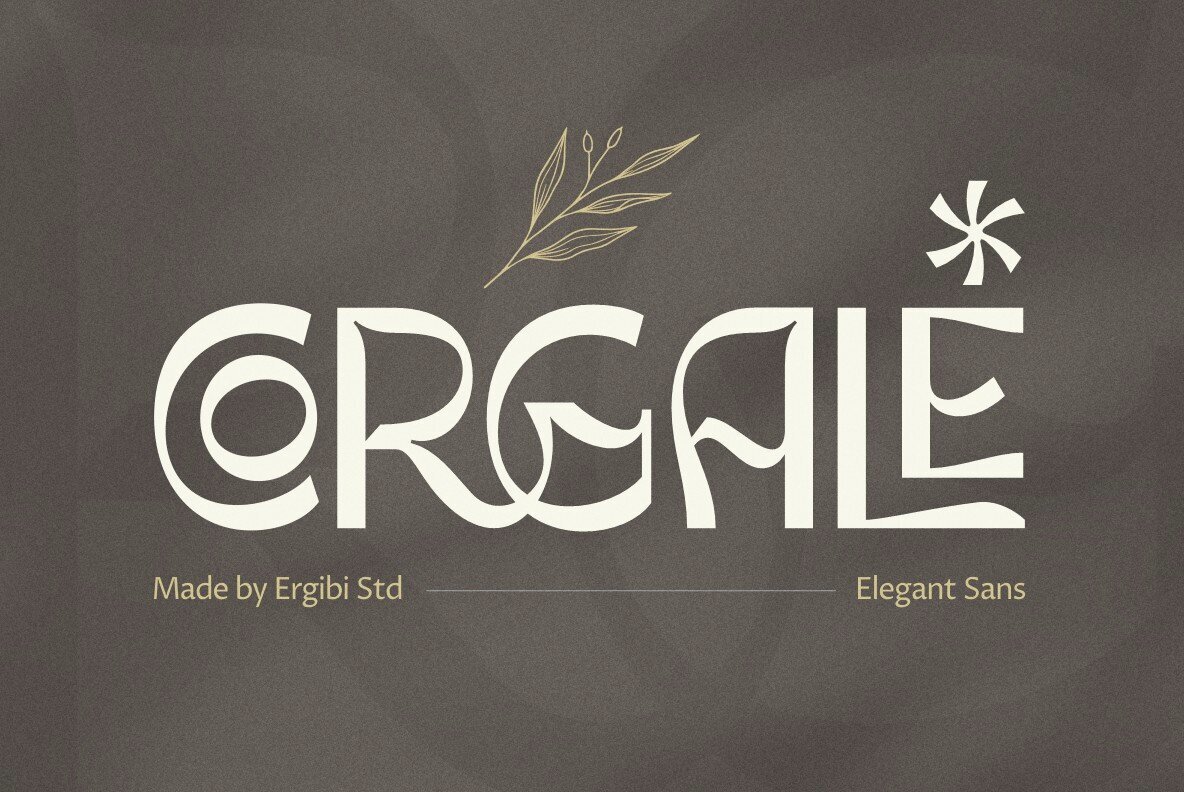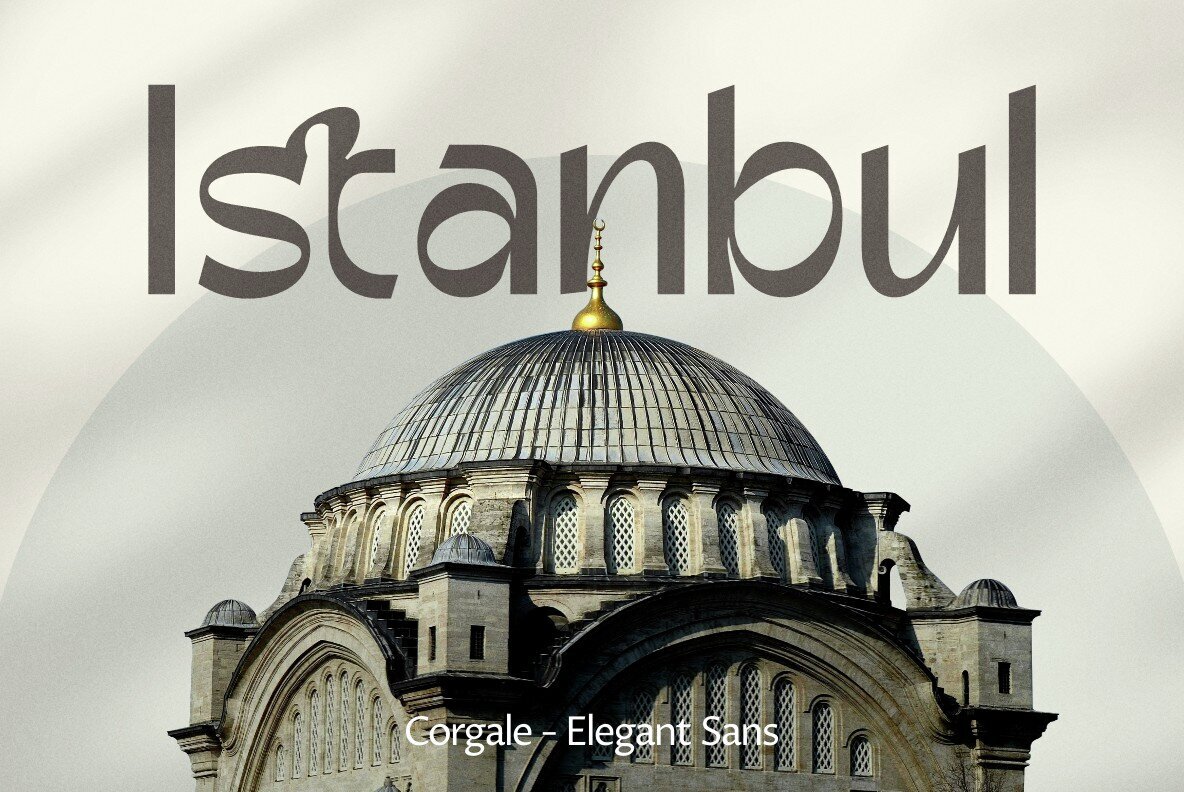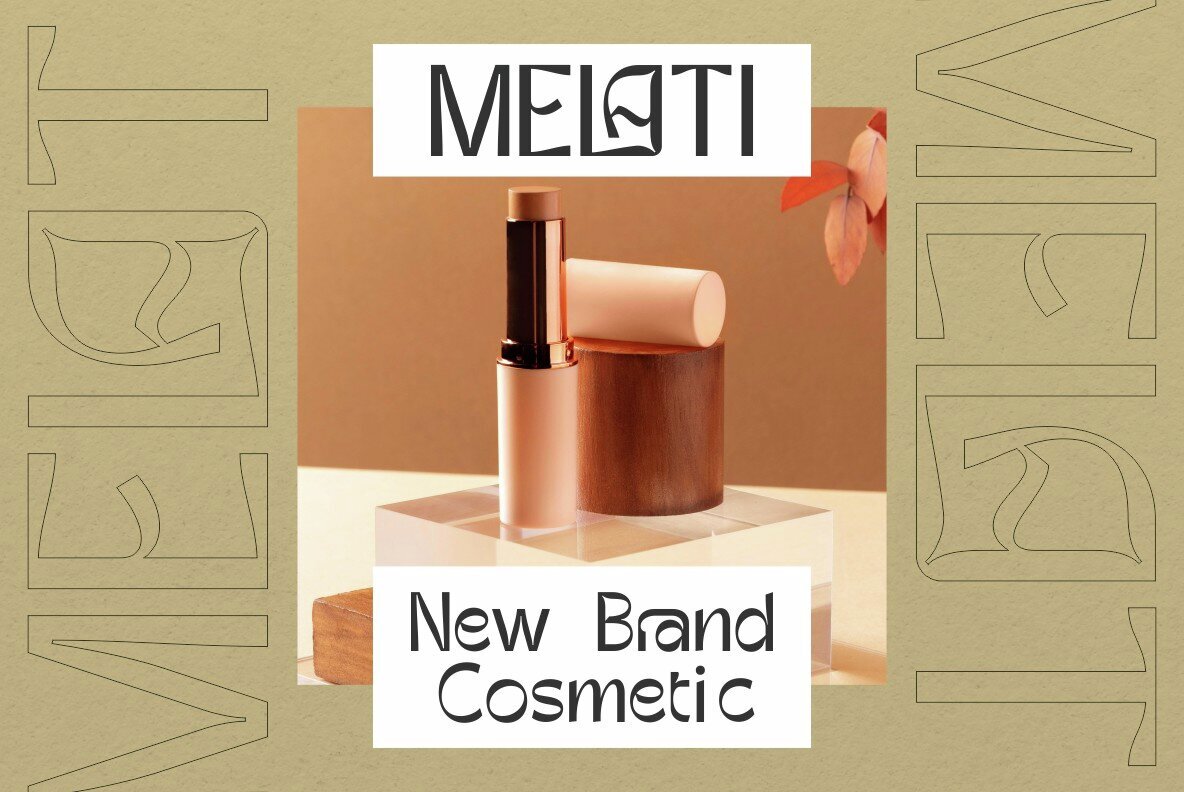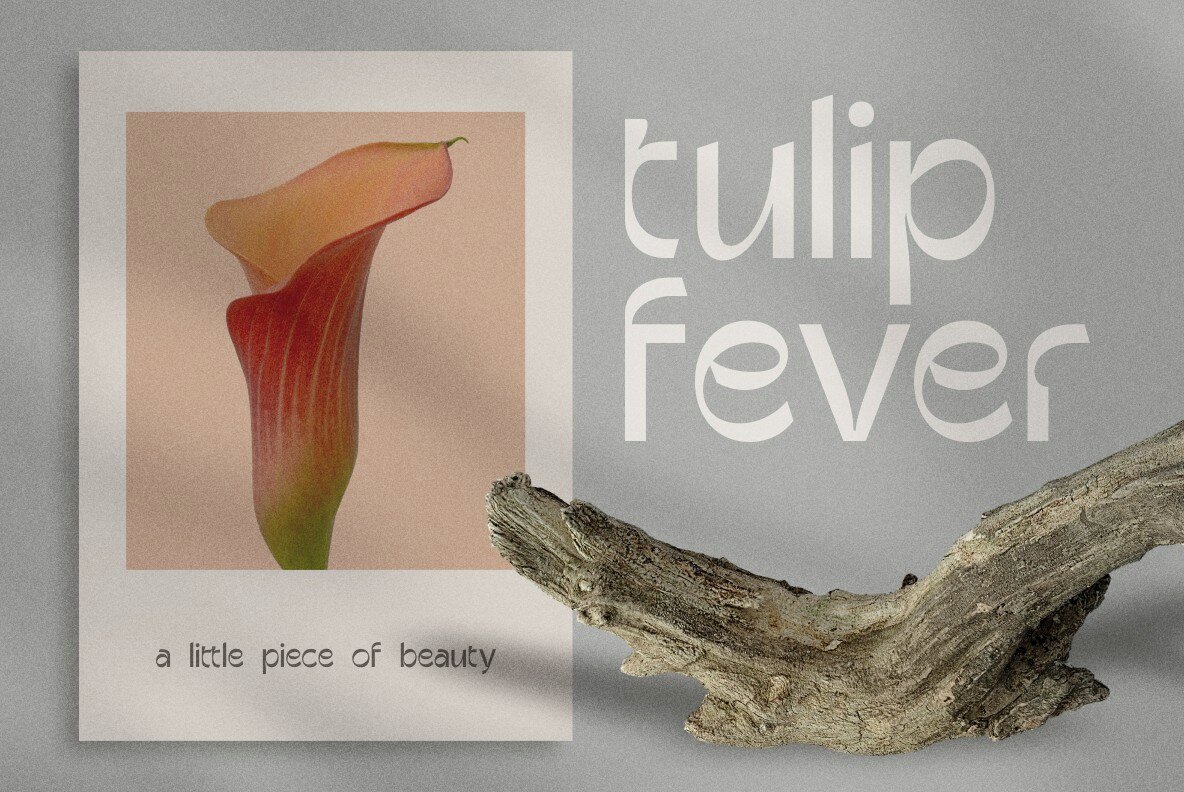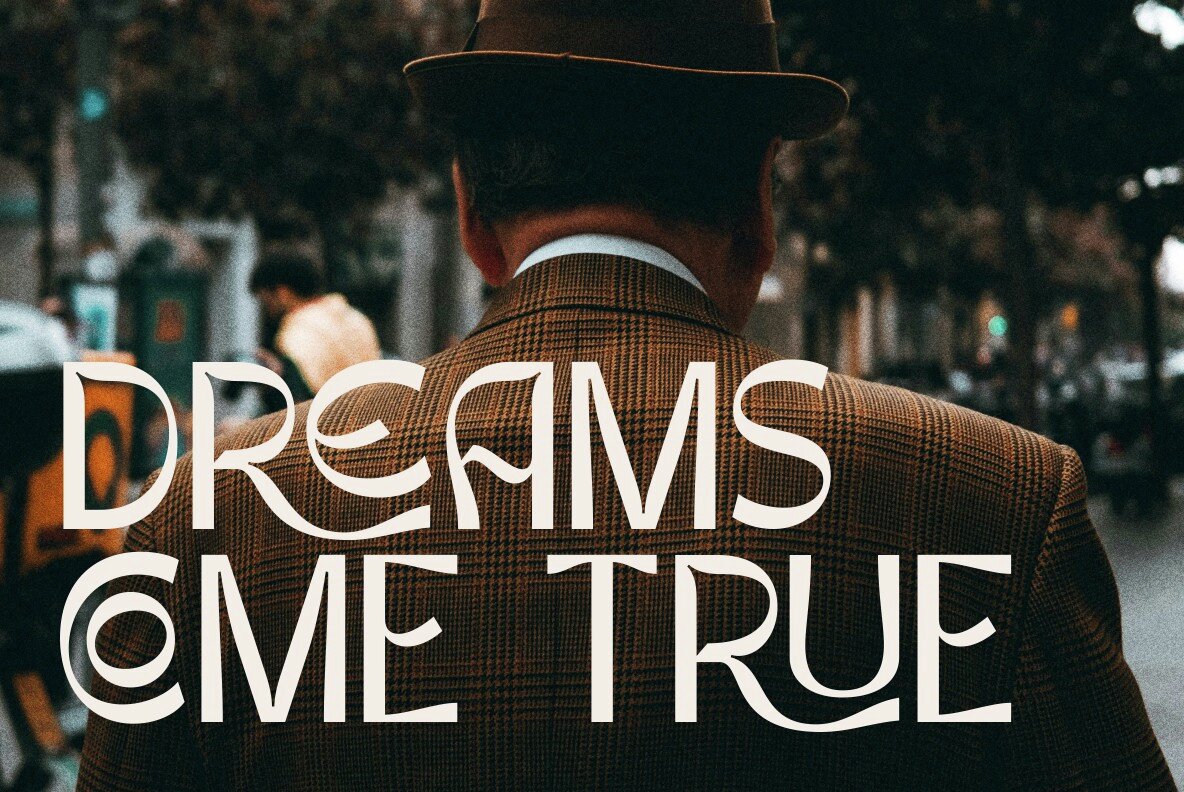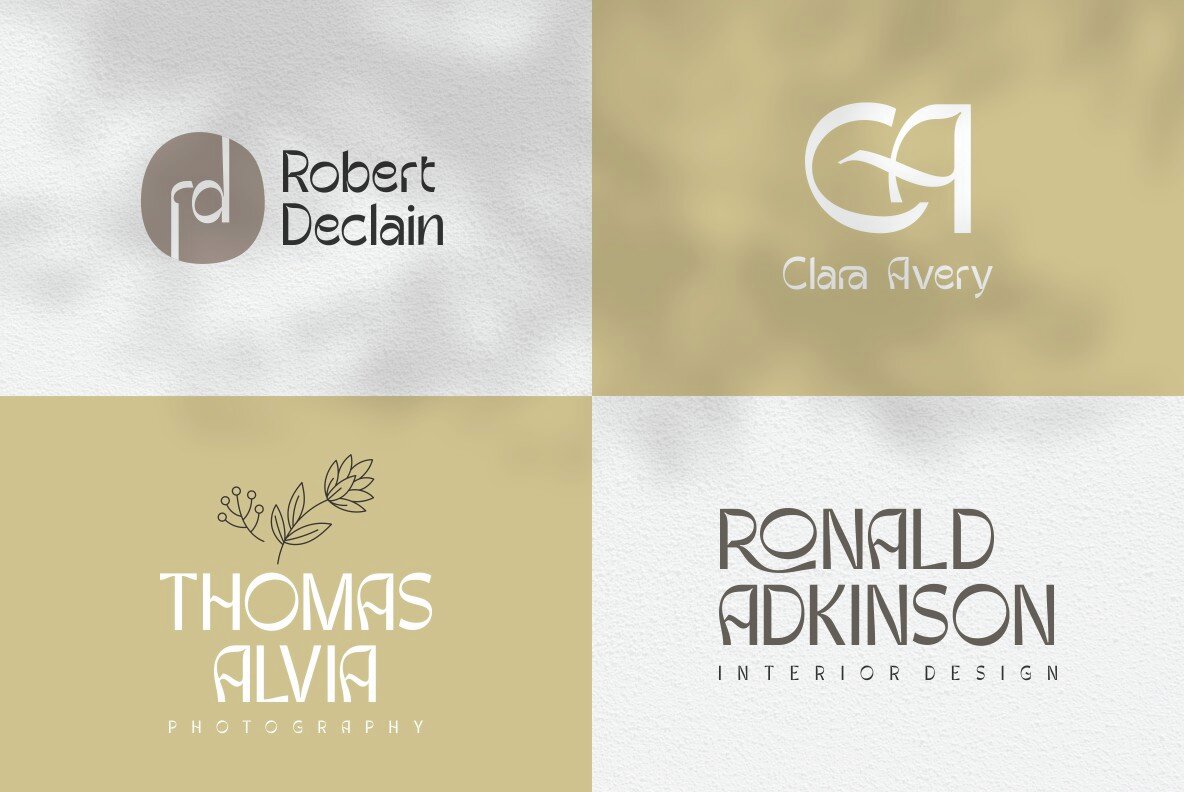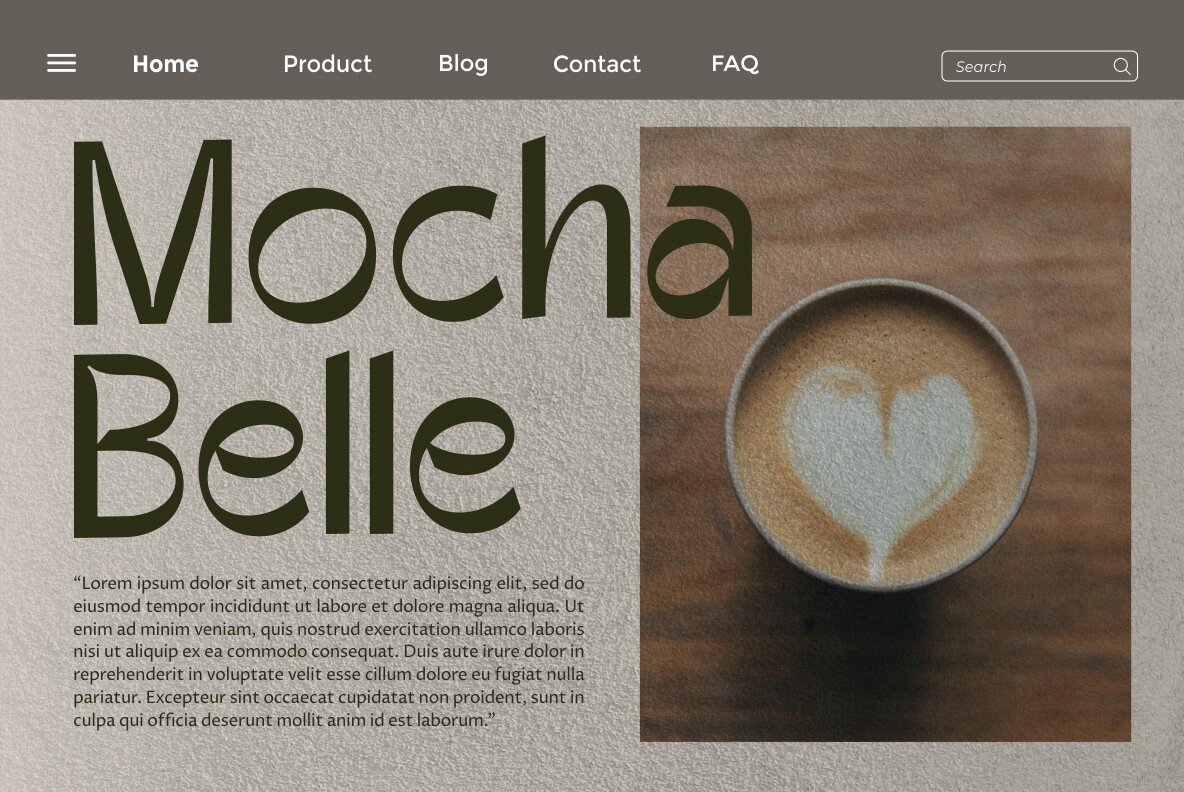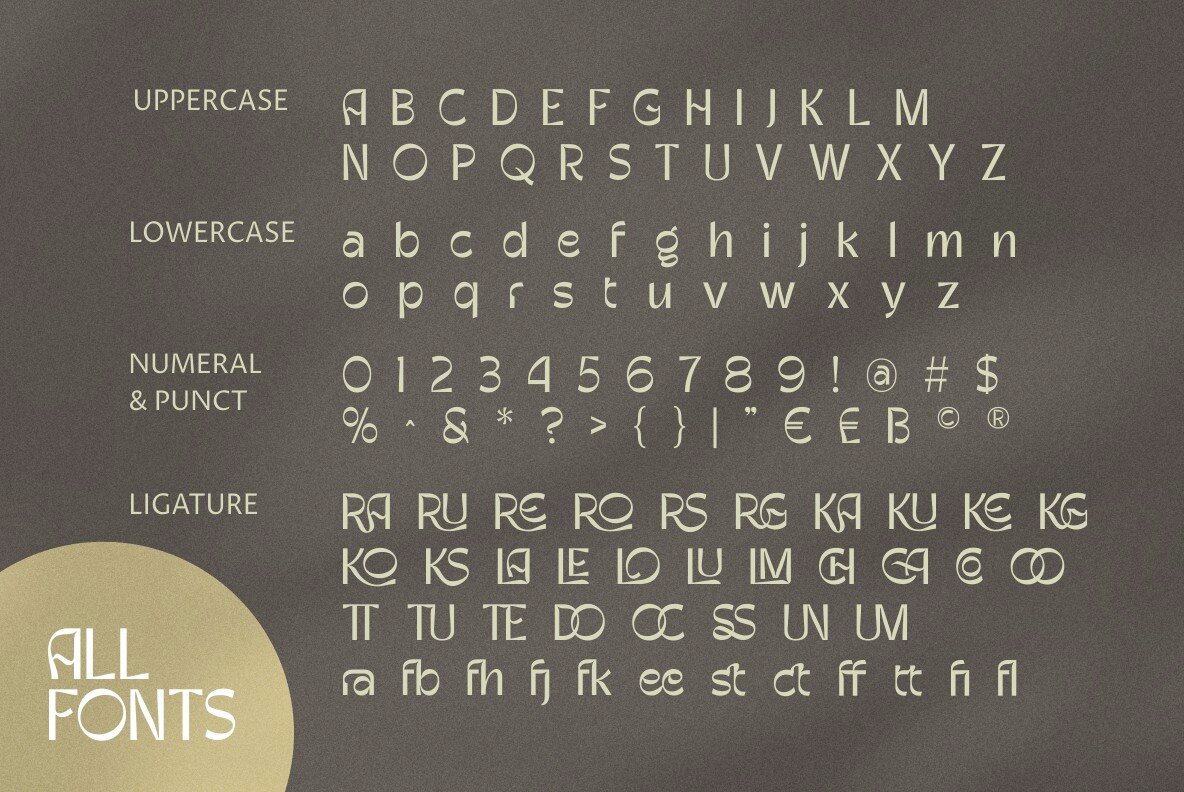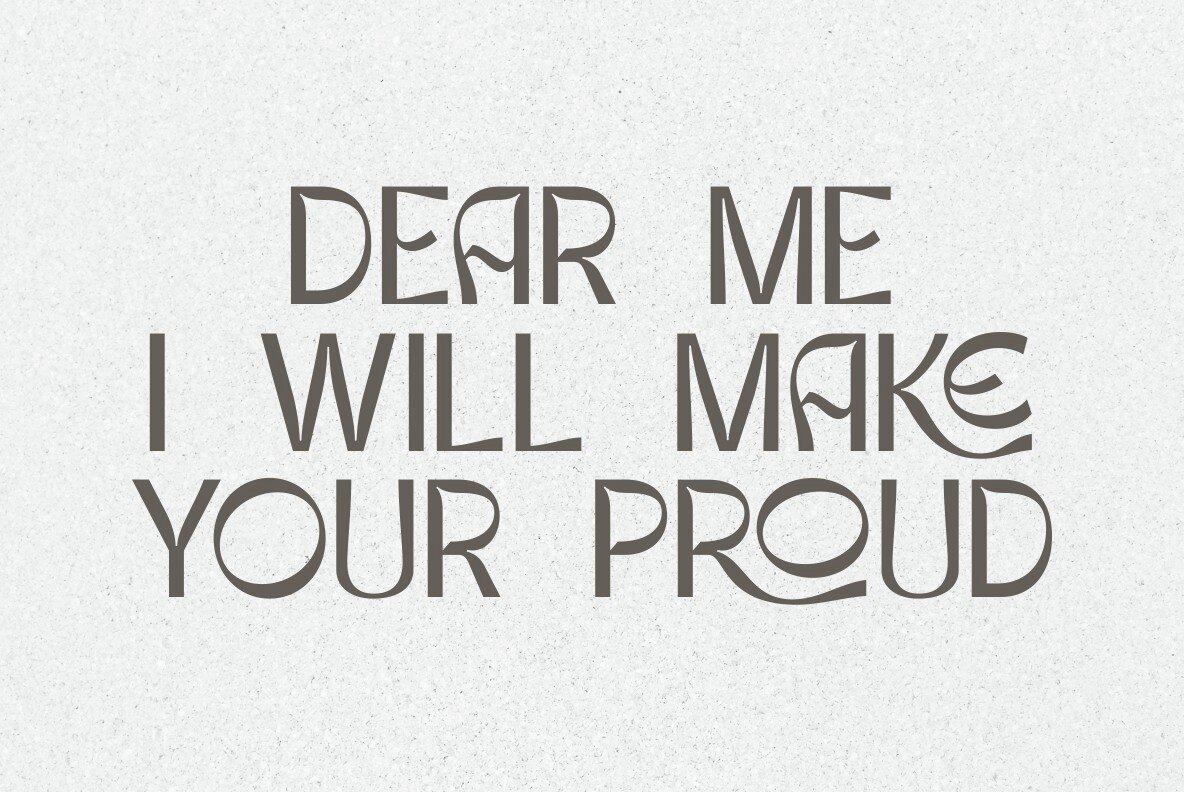
Corgale Font
Corgale Regular
Corgale brings a fresh, whimsical flair to any creative project. Its sans serif nature makes it an ideal choice for branding, headlines, posters, books, magazines, and packaging designs. Marrying a modern aesthetic with a straight and clean form, Corgale effortlessly melds with both contemporary and vintage visual styles. What sets Corgale apart are its playful ligatures, injecting unique personality into each character. Moreover, as a unicase typeface, it provides the flexibility to blend uppercase and lowercase letters seamlessly, crafting distinctive and imaginative typographic layouts.Corgale: The Quirky Sans for Playful Design